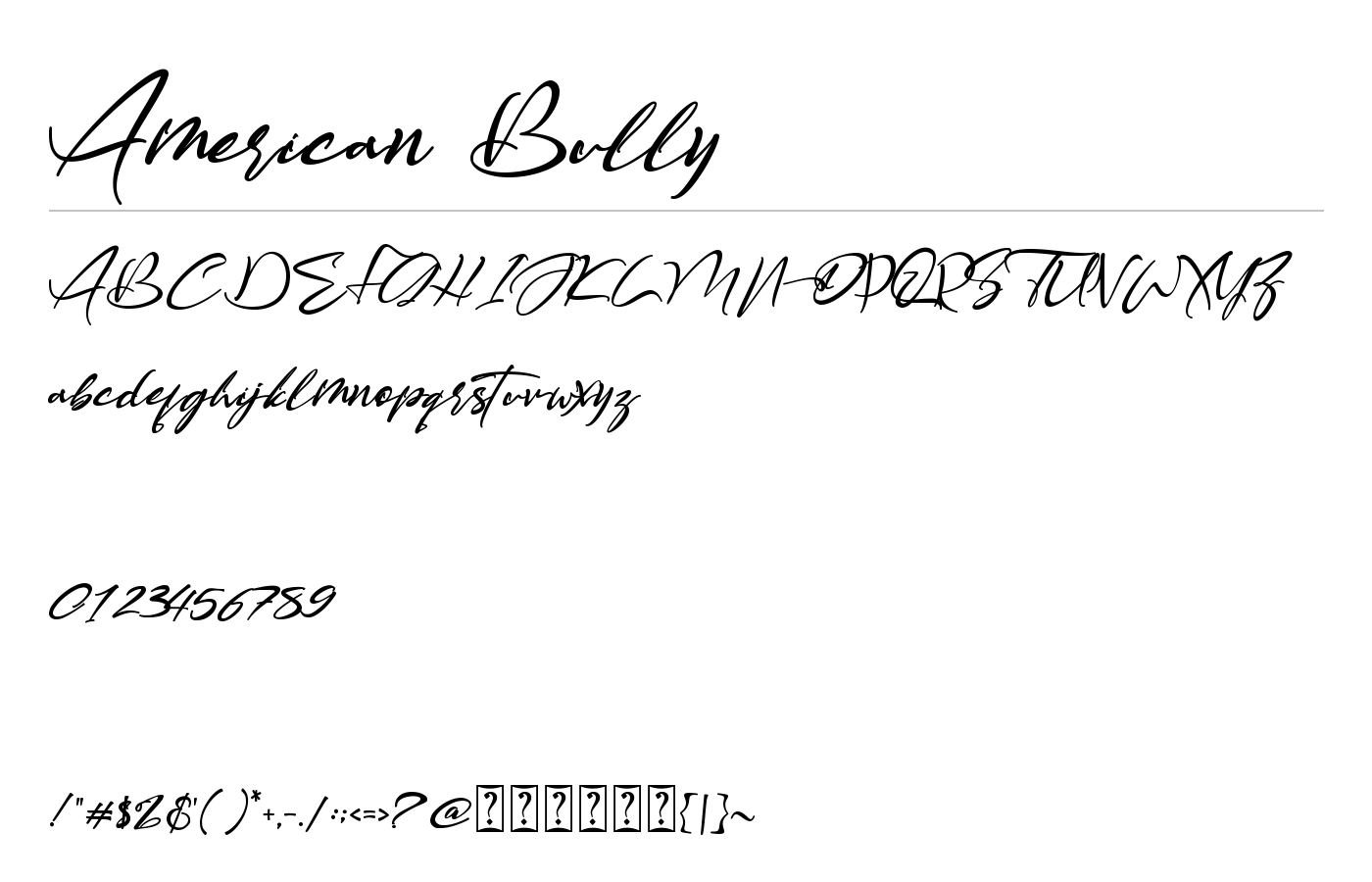
American Bully is a stylish script font characterized by its fluid, handwritten strokes and elegant, slightly bold weight. With its smooth, flowing letterforms and natural, casual flair, it evokes a sense of warmth and personal touch, making it ideal for invitations, branding, and creative projects seeking a modern yet approachable feel. This font works well in designs that benefit from a sophisticated and artistic hand-drawn look.
American Bully Font
About American Bully Font
| Font family | American Bully Font |
| Designer | Letterara |